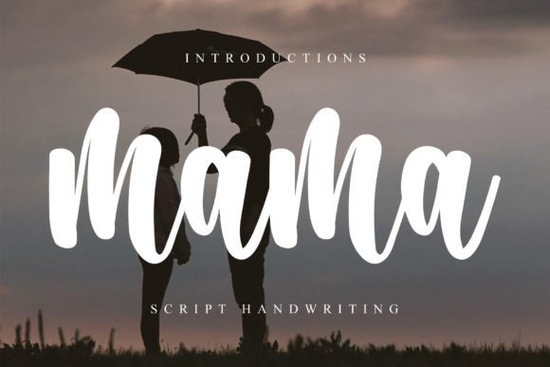
If you're looking for a handwritten script that feels personal, warm, and effortlessly stylish, the Mama Font might be exactly what your next project needs. It’s a gentle cursive typeface with just enough flair to feel elegant but not so ornate that it becomes hard to read or use. Whether you’re designing wedding invitations, branding a small shop, or creating greeting cards for a print-on-demand store, Mama adds a soft, joyful touch without overpowering your layout.
What makes this font especially useful is its balance. Many script fonts lean heavily into either formality or casualness, but Mama sits comfortably in between. That versatility means it works across a wide range of creative applications from fashion lookbooks to social media graphics without feeling out of place.
When should you use a font like Mama?
Handwritten-style fonts shine when you want your design to feel human and approachable. Mama is ideal for:
- Personalized gifts like mugs, tote bags, or wall art with quotes or names
- Small business branding, especially for bakeries, boutiques, or wellness services
- Event stationery such as baby showers, bridal parties, or anniversary celebrations
- Digital marketing assets where warmth and authenticity matter think email headers or Instagram story overlays
Because of its clean letterforms and consistent stroke weight, Mama remains legible even at smaller sizes, which isn’t always true for more dramatic scripts.
How does Mama compare to other handwritten fonts?
If you’ve browsed Creative Fabrica’s script collection, you’ve likely come across options like Highland Grove, which offers a more rustic, textured feel great for farmhouse or vintage themes. Or maybe you’ve considered Bailenson, a bolder script with dynamic swashes that commands attention on posters or packaging.
For projects needing a cozy, down-to-earth vibe, Farmhouse Font pairs well with natural materials and neutral palettes. Meanwhile, Whimza brings a playful bounce perfect for kids’ products or cheerful branding. And if you’re working on educational or journaling designs, Studying Font mimics neat penmanship with academic charm.
Each of these has its place but Mama stands out when you want something tender and timeless, not trendy or overly decorative.
Tips for pairing Mama with other typefaces
Since Mama is a script, it’s best paired with a simple sans-serif or serif font for contrast. Try using it only for headlines, names, or short phrases, and let a clean typeface handle body text. For example:
- Pair with Lora or Playfair Display for a classic, editorial look
- Combine with Montserrat or Poppins for modern minimalism
- Avoid pairing it with another script two flowing fonts can compete visually
Also, give Mama some breathing room. Generous line spacing and ample margins help its delicate curves shine without feeling cramped.
Who is this font really for?
Mama isn’t just for professional designers. Crafters love it for vinyl cutting and embroidery because its smooth lines translate well to physical media. Print-on-demand sellers use it to add a handmade aesthetic to digital products without custom illustration. Small business owners especially in lifestyle, beauty, or food niches find it helps convey care and personality in their visual identity.
Even hobbyists creating family photo books or holiday cards appreciate how it elevates simple layouts with minimal effort. The key is using it intentionally: less is often more with script fonts.
Quick checklist before using Mama Font:
- ✅ Use it for short text names, quotes, headlines not paragraphs
- ✅ Pair it with a neutral, readable complementary font
- ✅ Test readability at your final output size (especially for print)
- ✅ Consider alternatives like Whimza or Farmhouse Font if your project calls for more whimsy or texture
When used thoughtfully, Mama Font adds sincerity and grace to your designs without trying too hard.